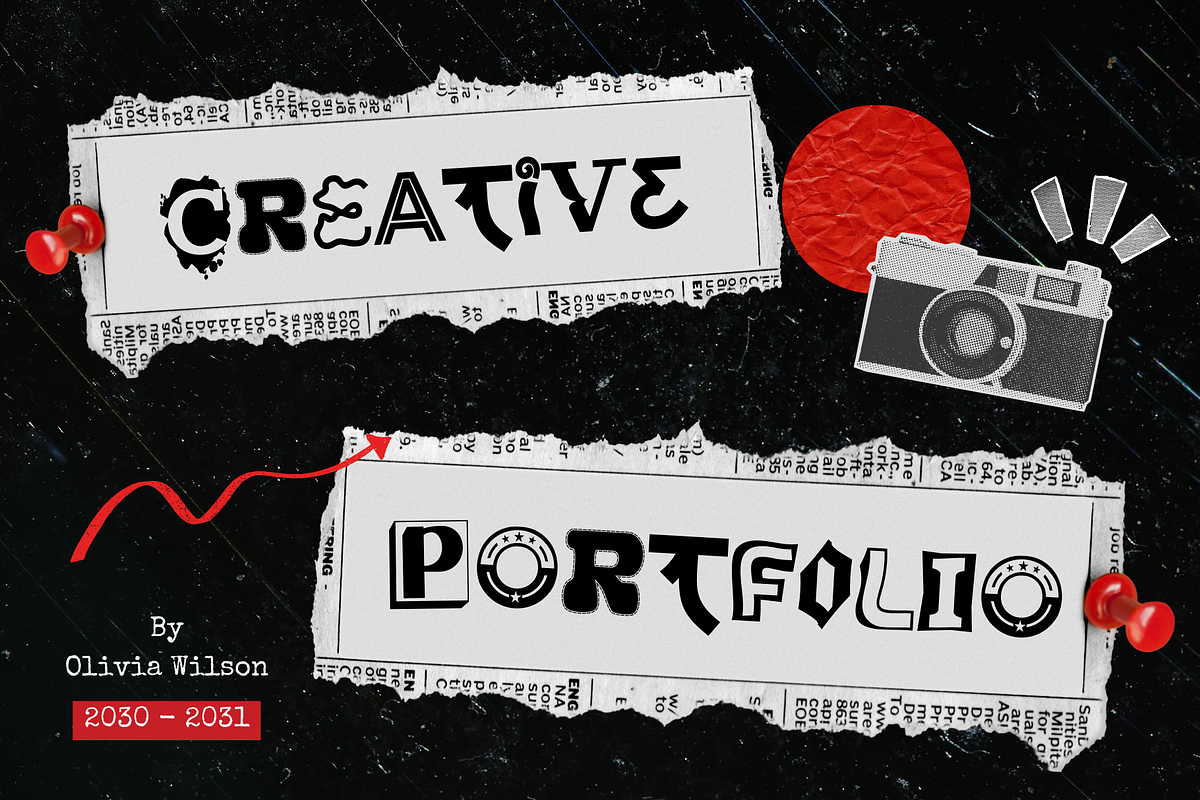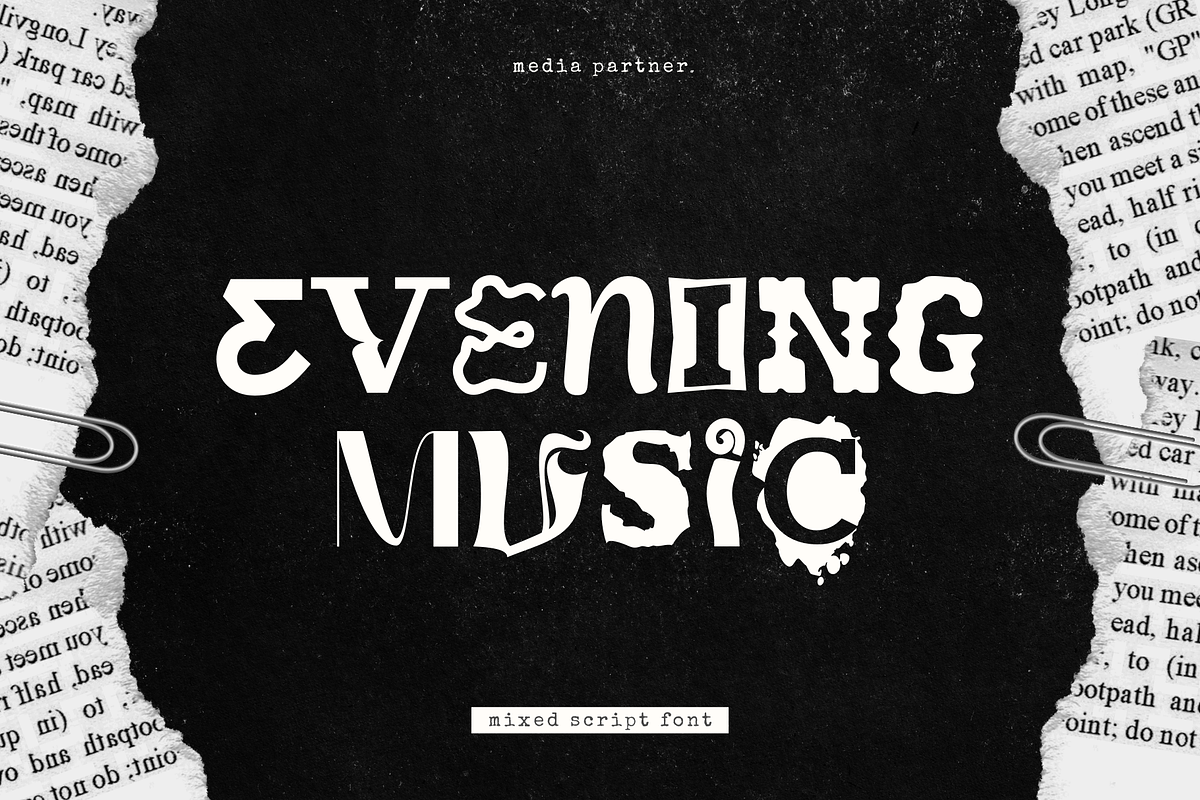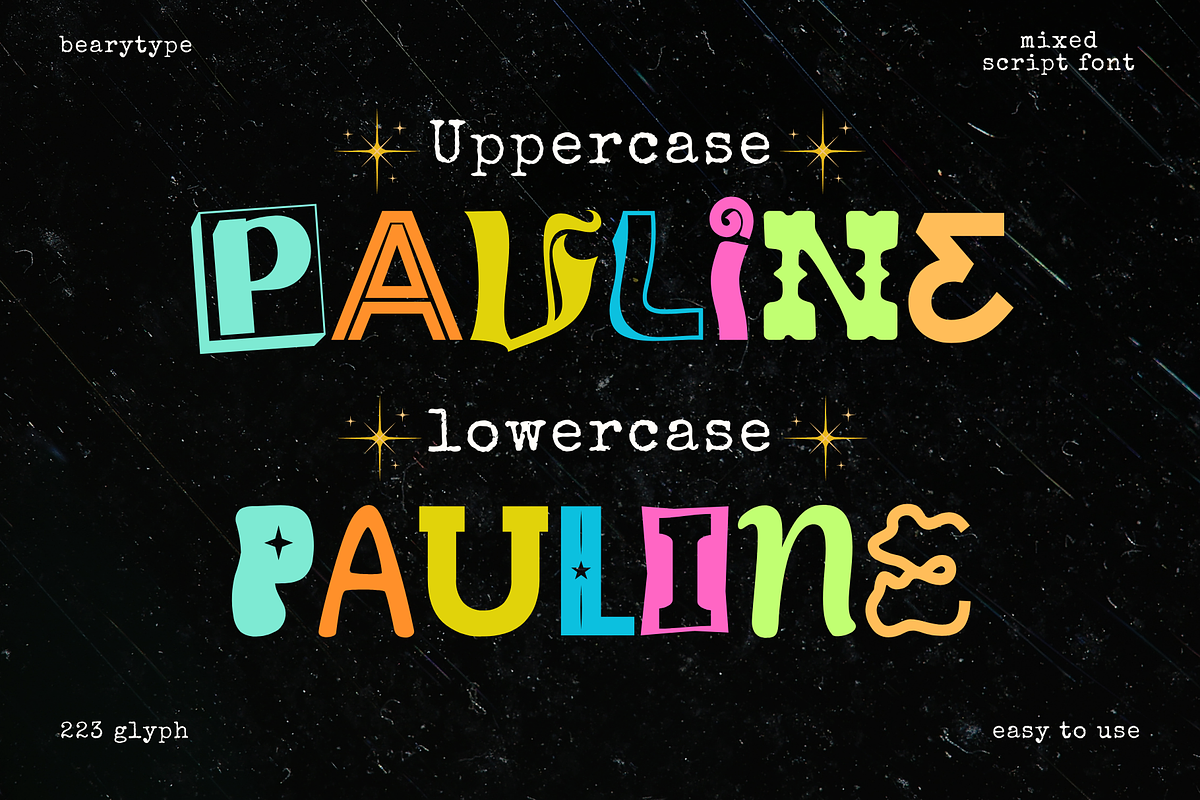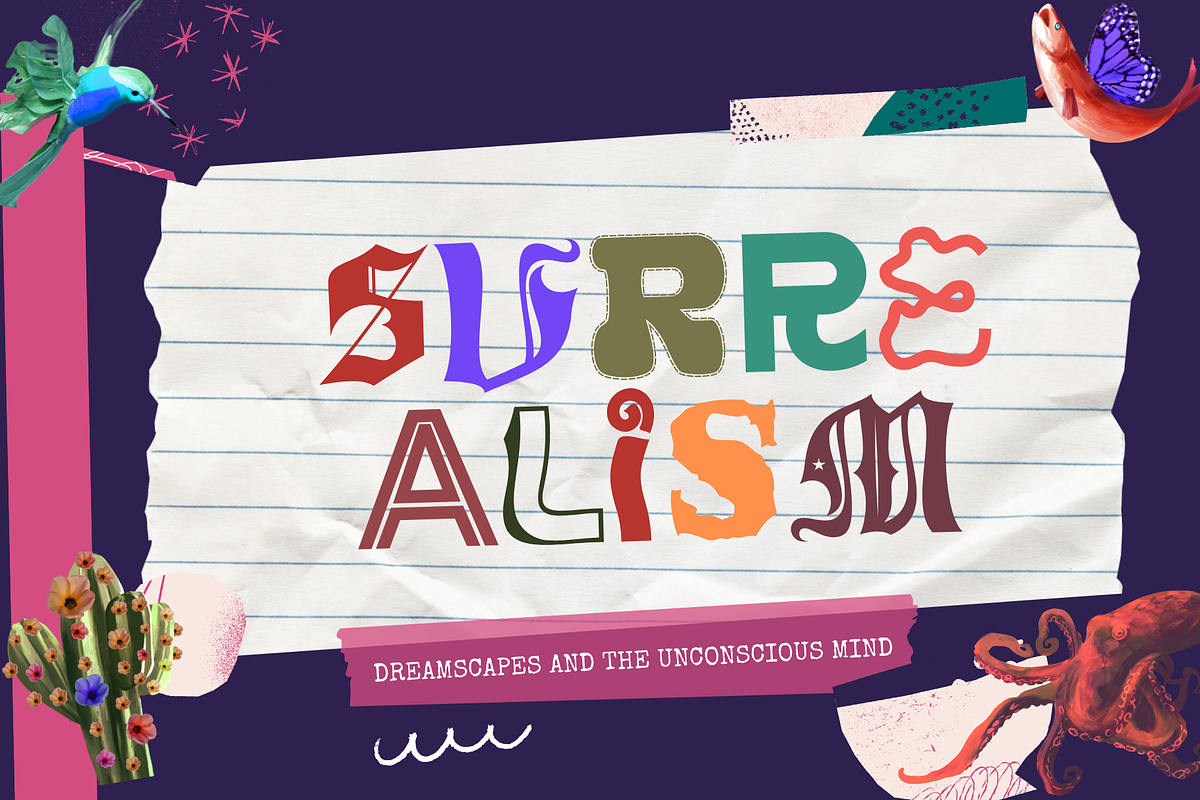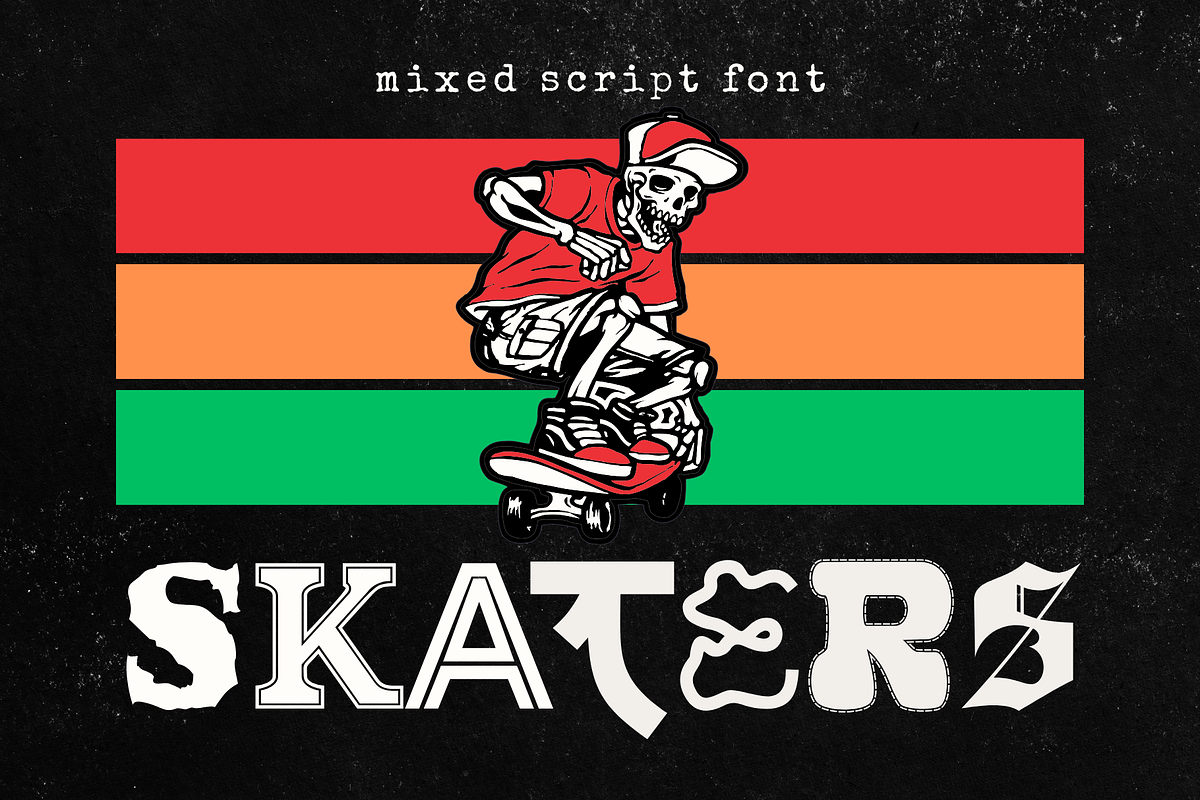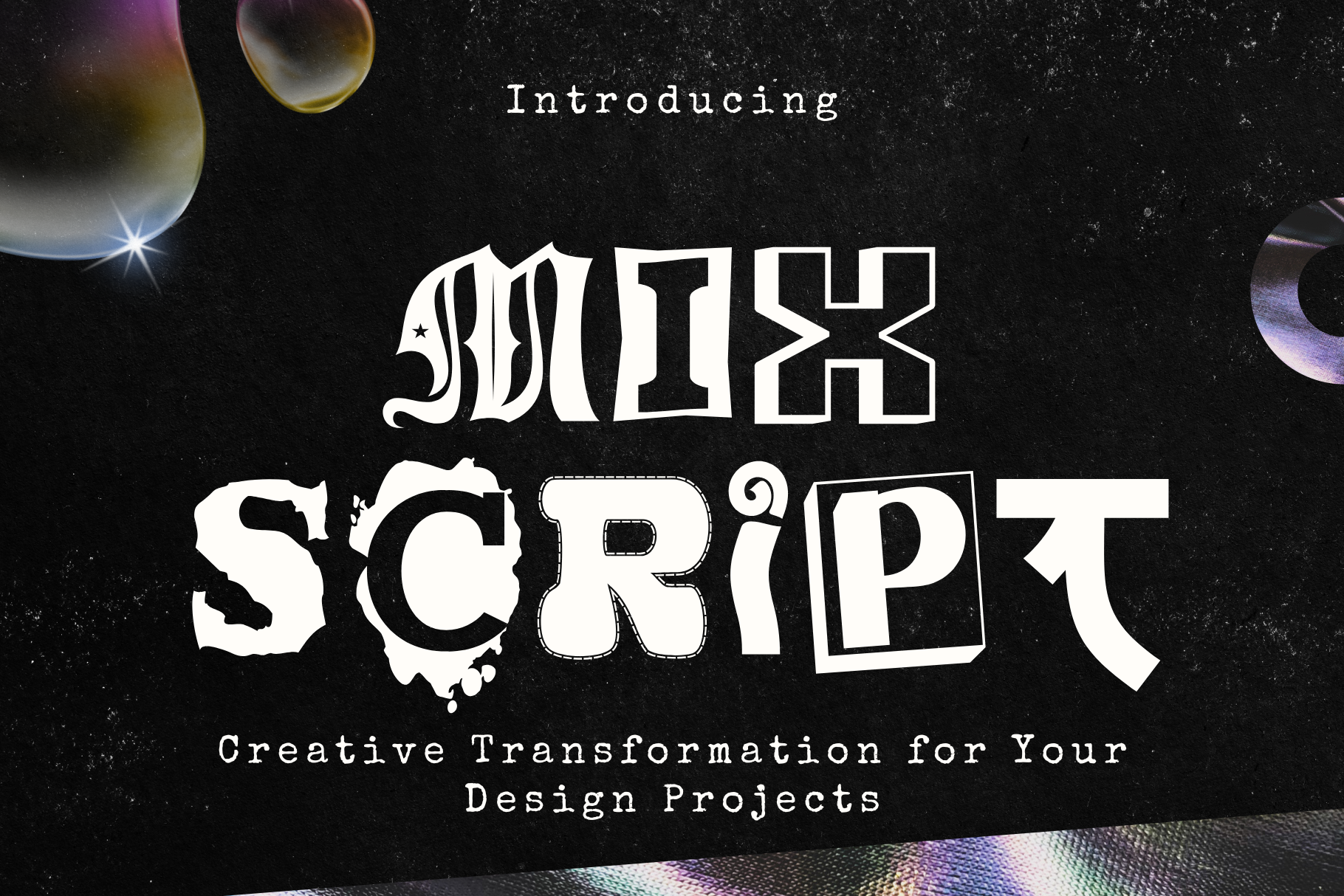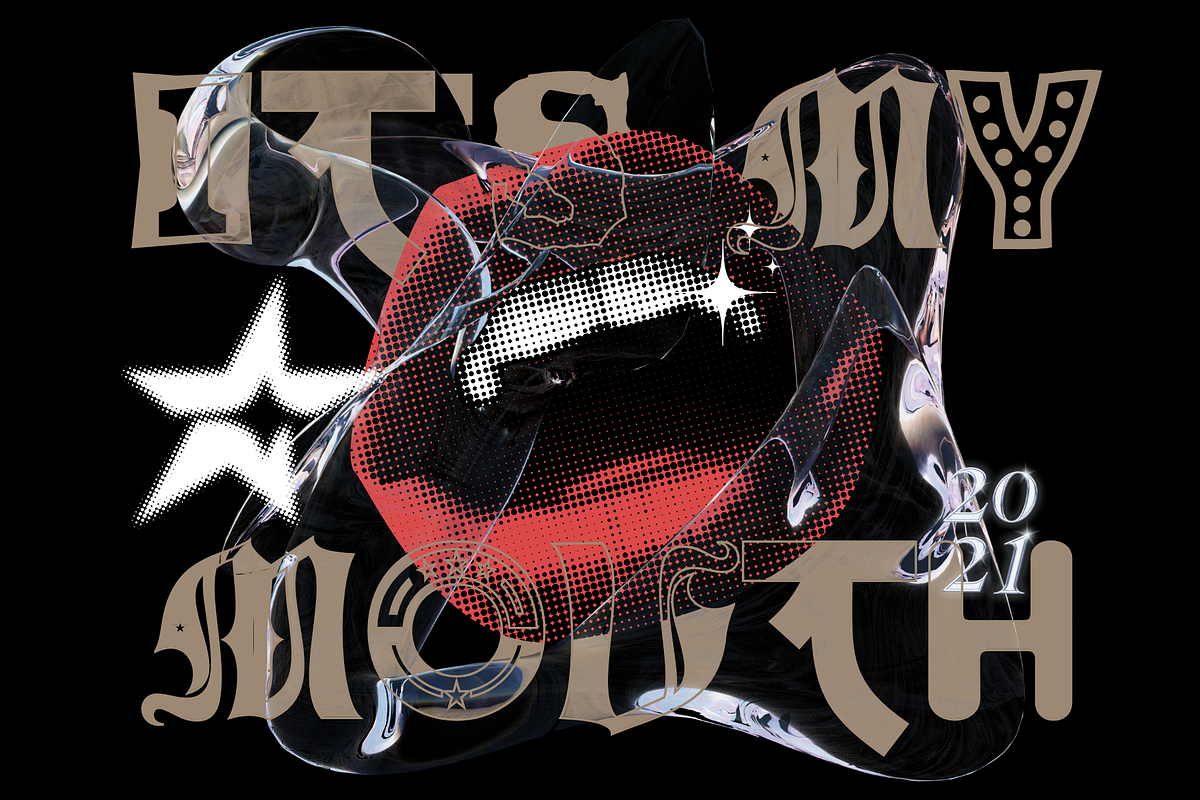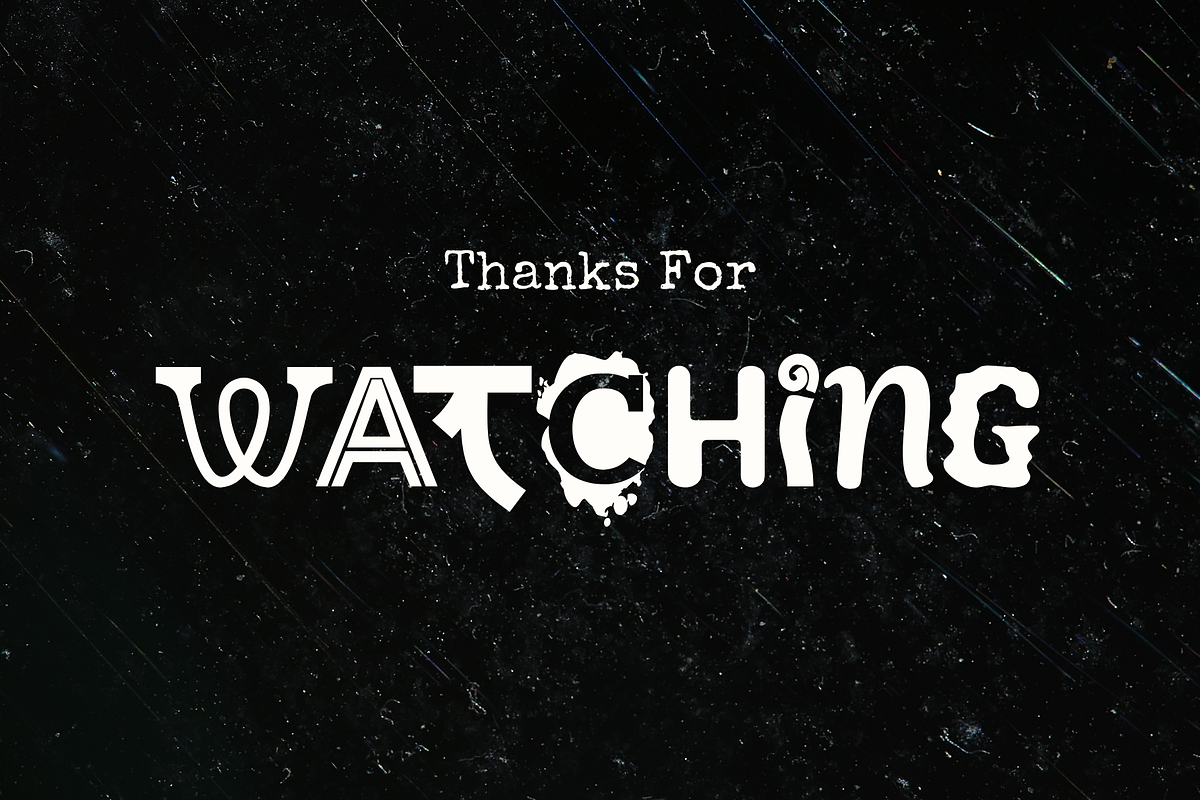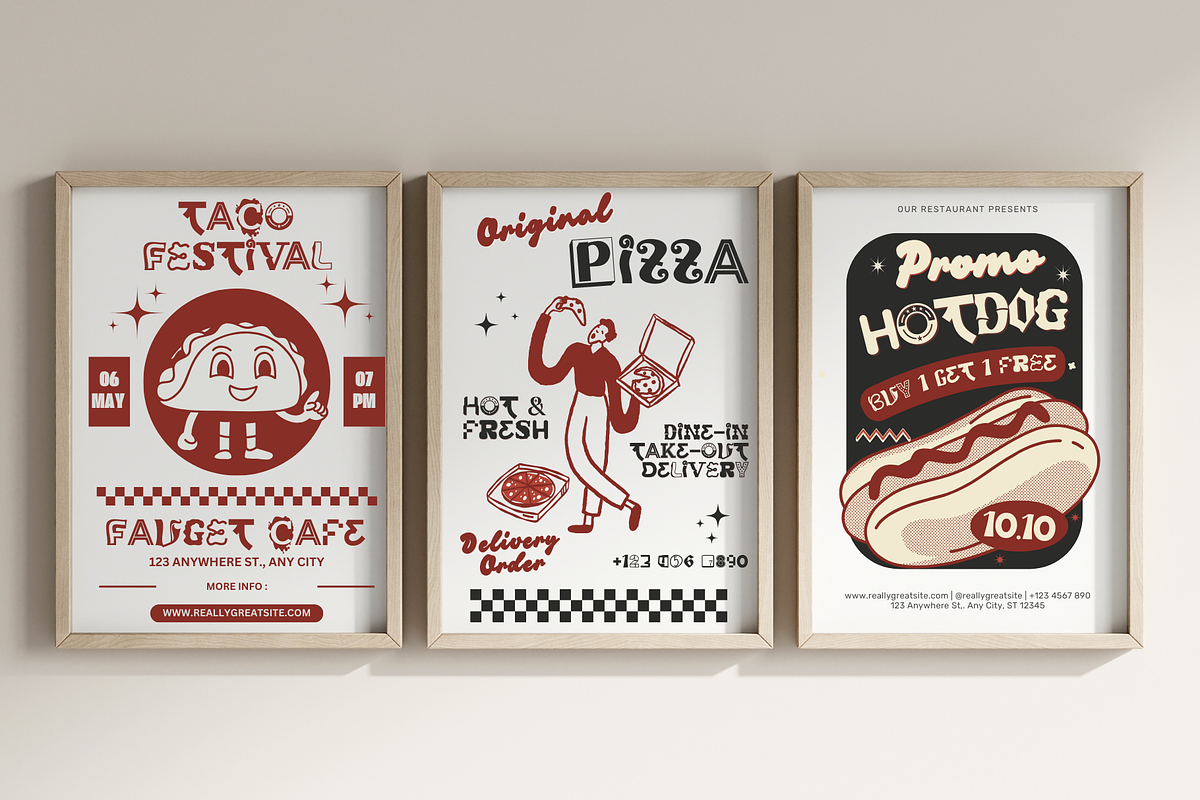
Mixed Script - Mixed display font
MixScript is a unique display font that blends various typographic styles into one captivating creative masterpiece. Each letter in MixScript is an artistic exploration, combining elements of sans serif, serif, handwriting, and pixel style to create a dynamic and character-filled appearance. Perfect for posters, branding, editorials, or design projects needing an eccentric touch, MixScript brings bold and unforgettable charm to any design.